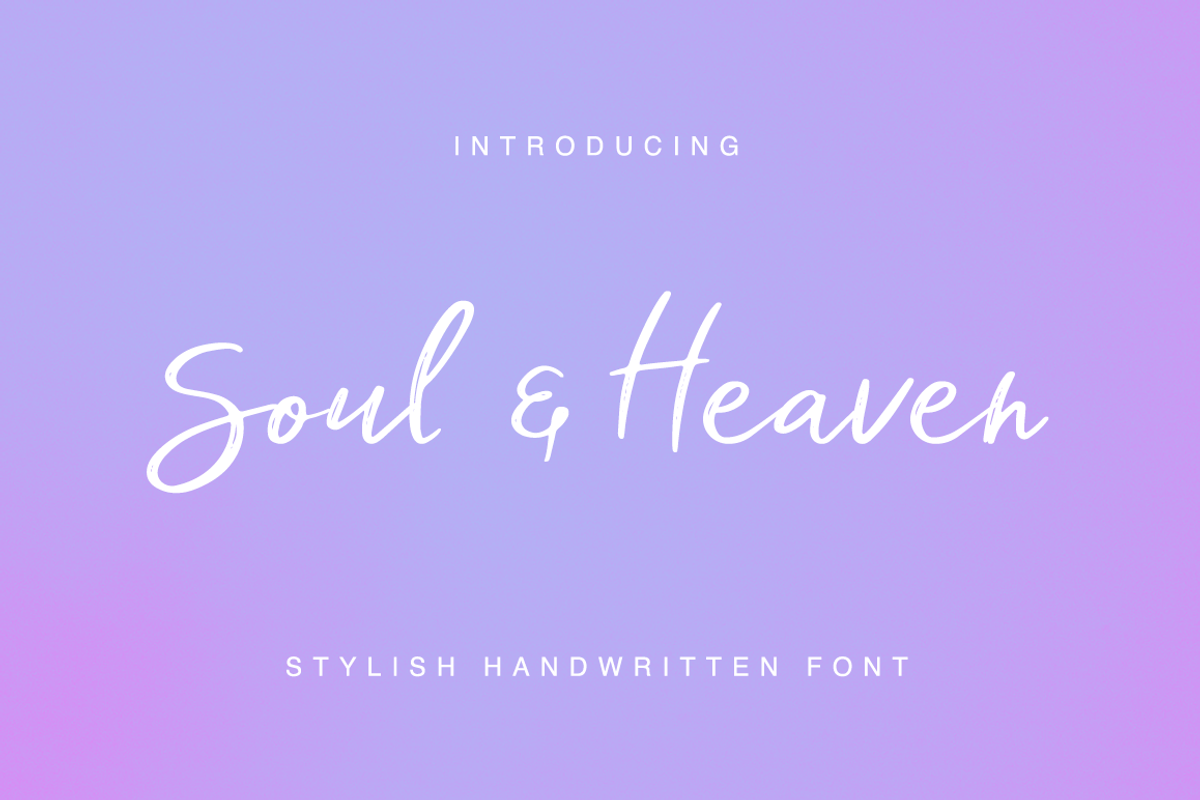
Soul&Heaven Font Free Download is a graceful and expressive script typeface that blends emotional depth with stylish elegance. Please note, you are required to purchase this font for commercial use. It is available for free download for testing and personal projects only.
With its flowing strokes, artistic curves, and handwritten charm, Soul&Heaven is perfect for wedding invitations, romantic branding, heartfelt quotes, packaging, and social media graphics. It adds a soulful, luxurious touch that turns ordinary text into a meaningful message.